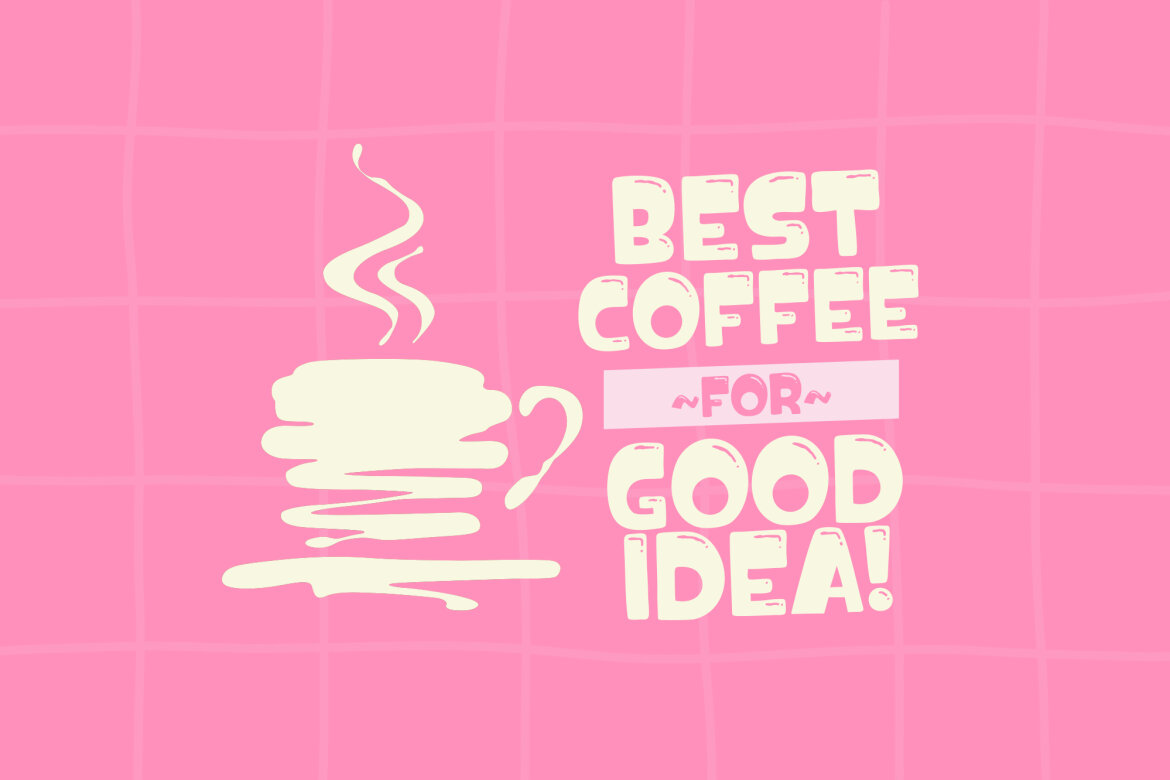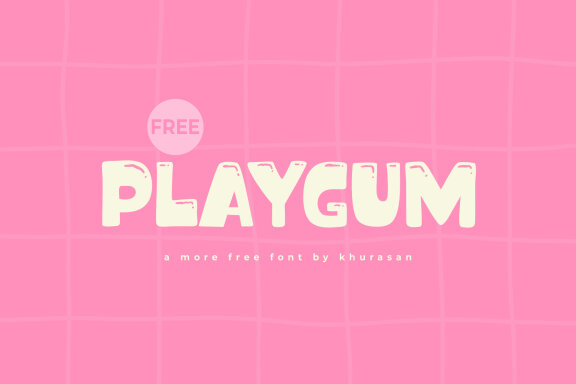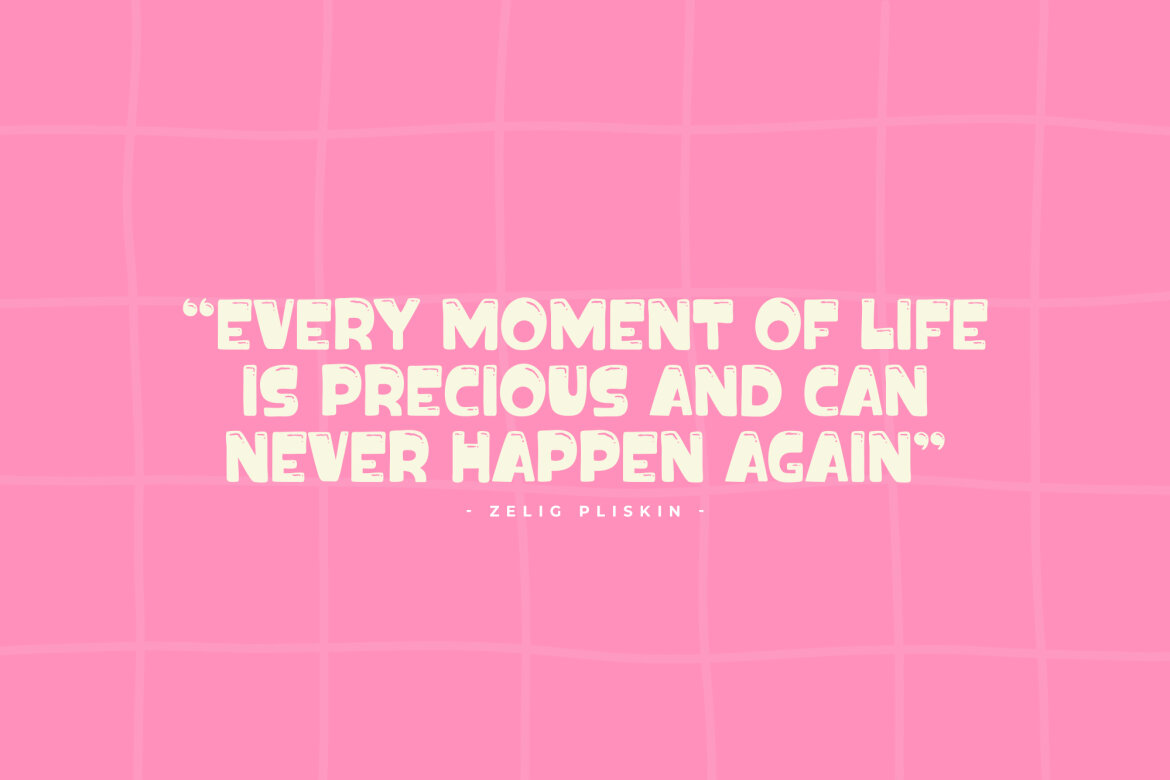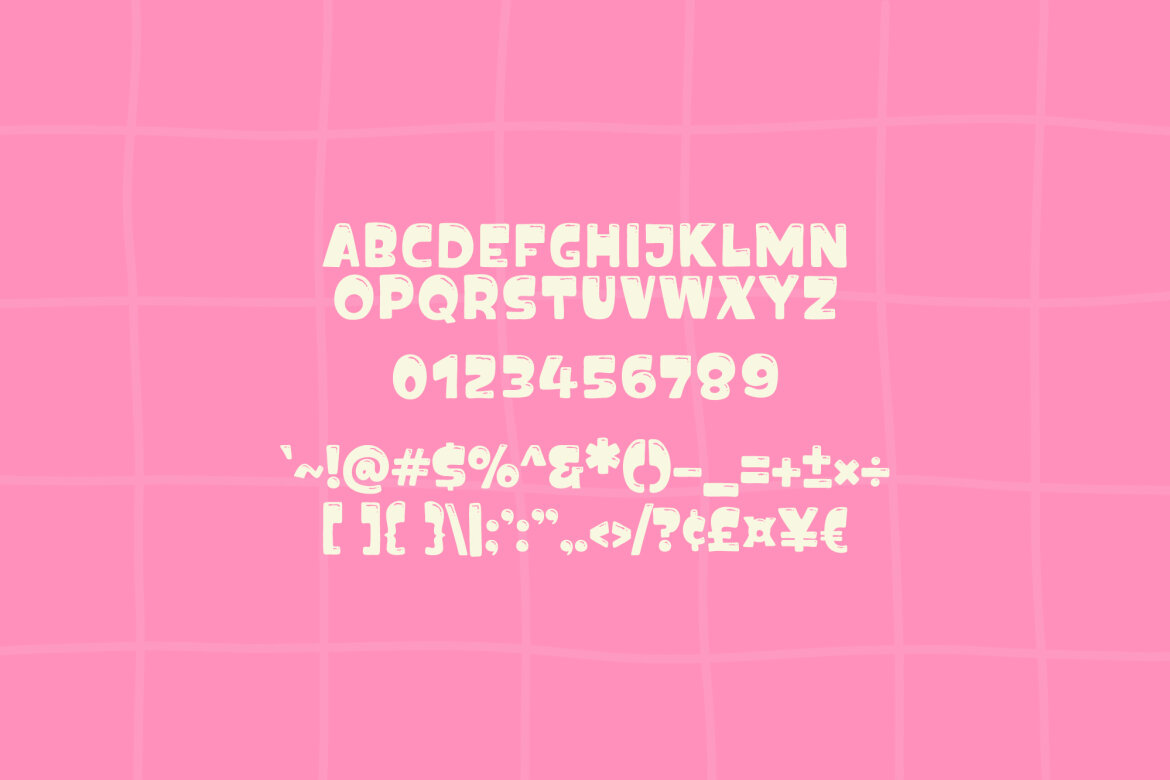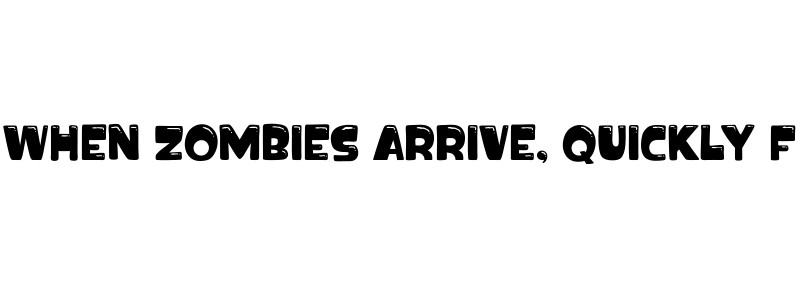
Playgum FREE Font
Playgum
Playgum is a modern and cute display font perfect for posters, logos, magazines, book covers, banners, and many more! Get this amazing font, and use it to create lovely designs. It can easily be matched to an incredibly large set of projects, so add it to your creative ideas and notice how it makes them stand out!